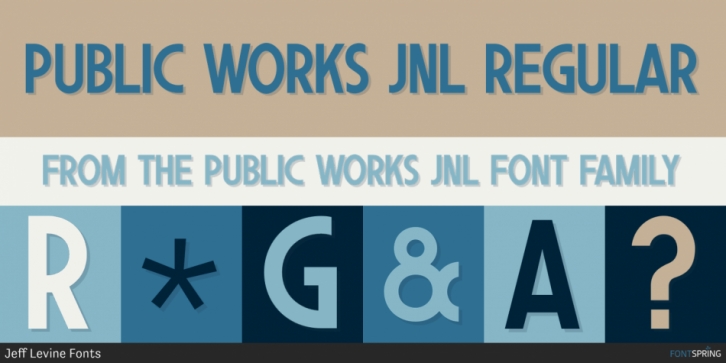
Public Works JNL is a display sans font published by Jeff Levine Fonts.
Public Works JNL emulates the hand-made lettering found on older signs printed by silk screen for local governments.